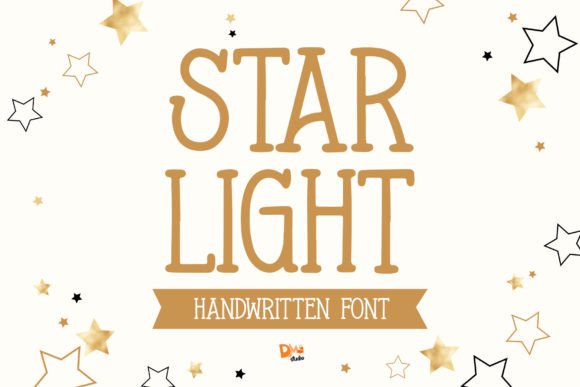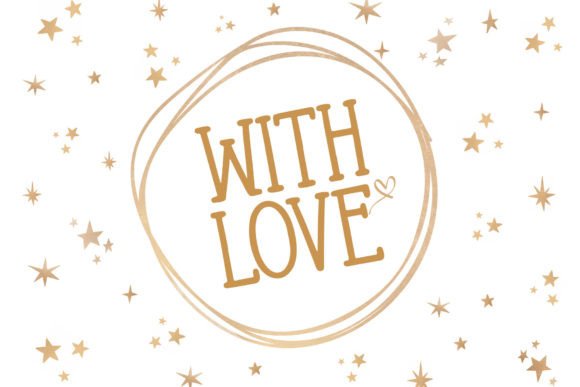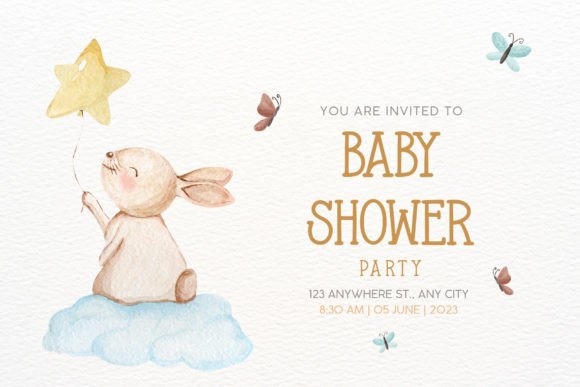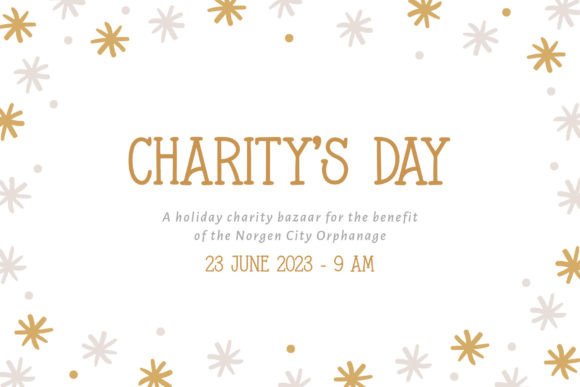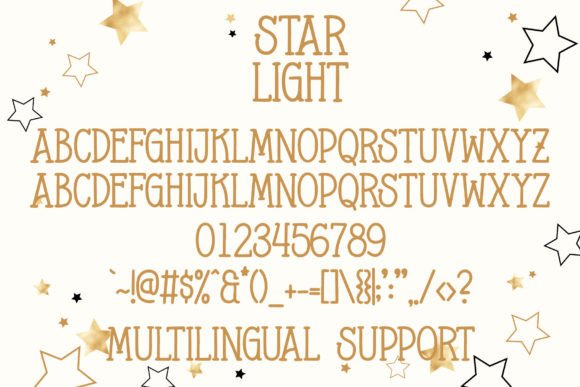
Star Light
Starlight is a fun, clean, and well-designed slab serif font, perfect for any project! Use this unique font to create stunning designs, or combine it with other fonts like scripts and sans serifs.